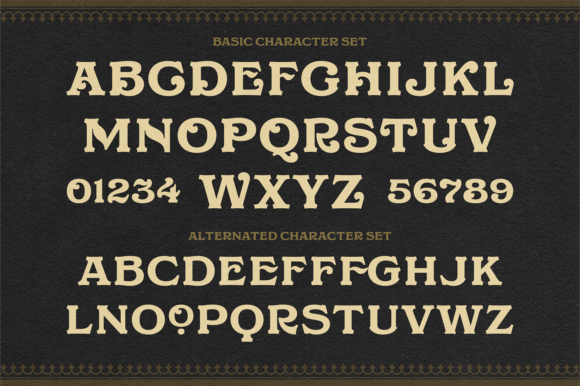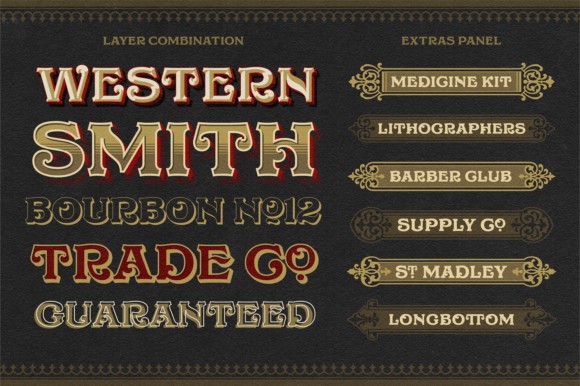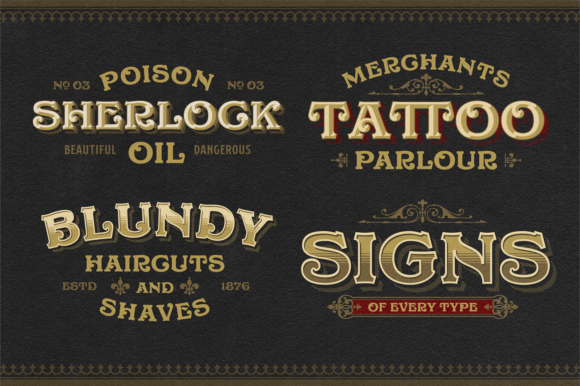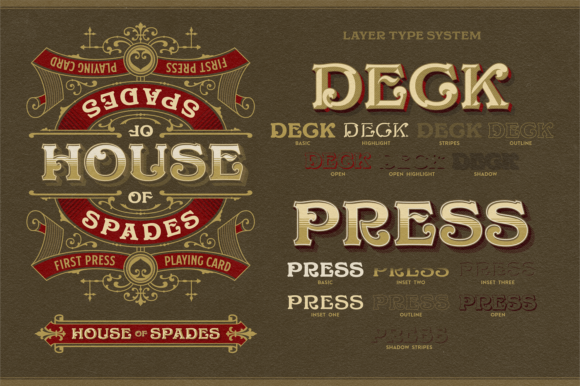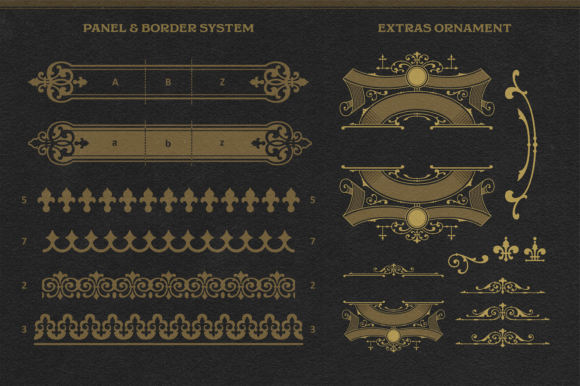
The Deckpress Font: A Timeless Classic for Creative Projects
I’ll never forget the design struggle I faced while working on a vintage-themed postcard project. I had all the graphics and images ready, but I just couldn’t find the perfect font to give it that authentic, 19th-century feel. That’s when I stumbled upon the Deckpress font, and it completely transformed my design. In this article, I’ll share my experience with Deckpress, its features, and how to make the most of it in various design platforms.
What is Deckpress Font?
Deckpress is a distinct display font inspired by the letterpress archive and printed media from the 19th Century. It’s ideal for headlines, labels, playing cards, postcards, book covers, signs, and more. The font is PUA encoded, which means you can access all the glyphs and swashes with ease.
My Honest Review of Deckpress
Here’s what I love about Deckpress:
- ✨ Unique and authentic 19th-century feel
- 🎨 Highly versatile for various design projects
However, I did notice a few minor quirks:
- ⚠️ Some characters may require manual kerning for optimal spacing
- 🤔 Limited use for body text due to its display font nature
The Backstory of Deckpress
Deckpress was designed with the goal of capturing the essence of 19th-century printed media. The font’s creator drew inspiration from vintage letterpress archives and aimed to create a font that would evoke a sense of nostalgia and timelessness. The result is a unique and versatile font that’s perfect for a wide range of design projects.
| Is Deckpress suitable for body text? | No, Deckpress is a display font and is best suited for headlines, titles, and short text passages. It’s not recommended for body text due to its size and style. |